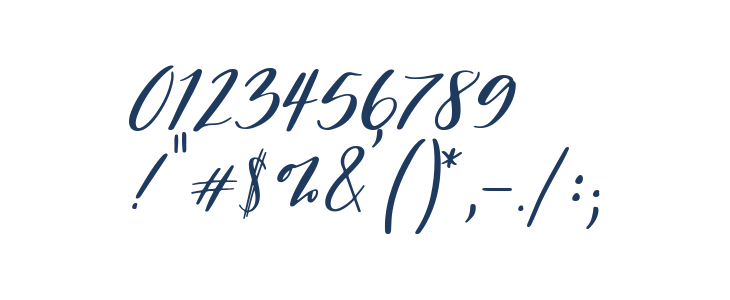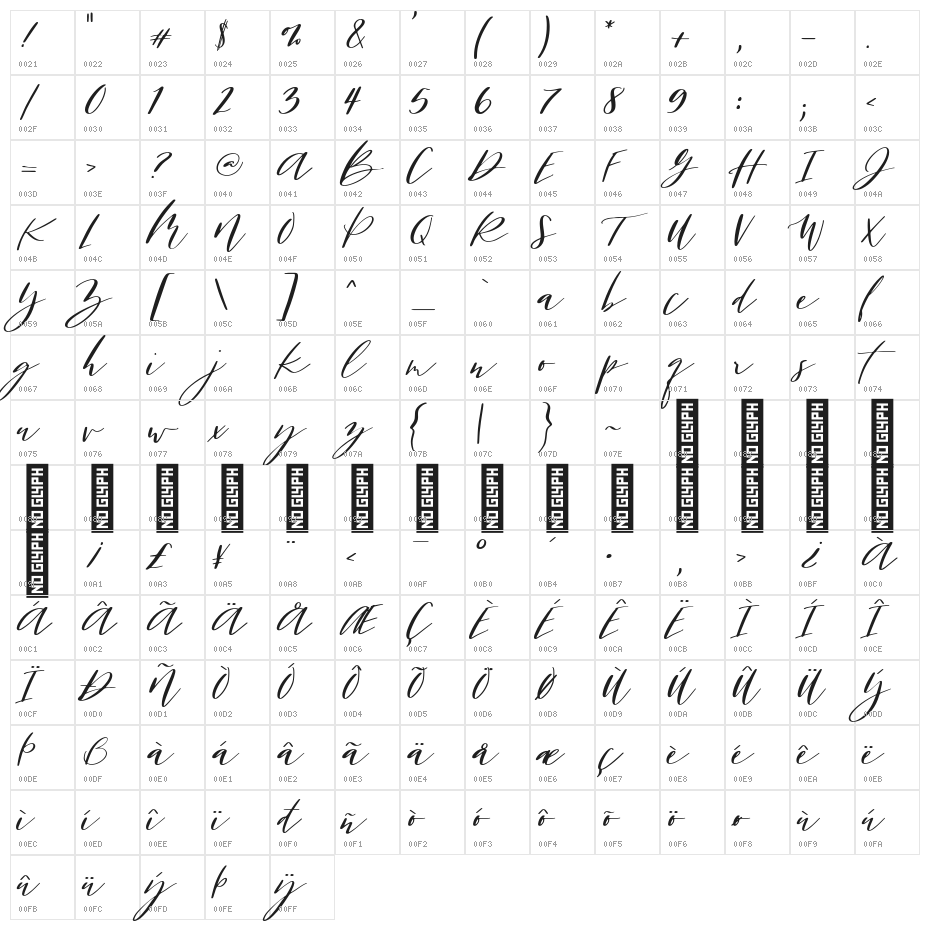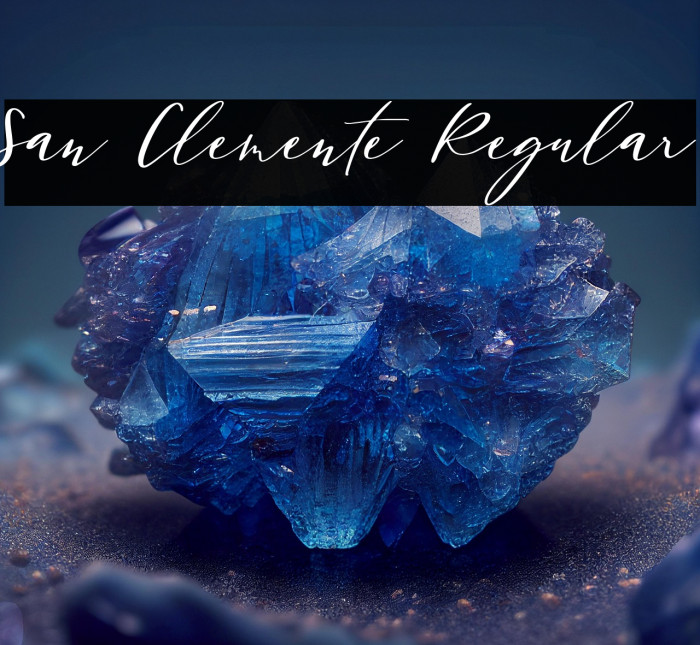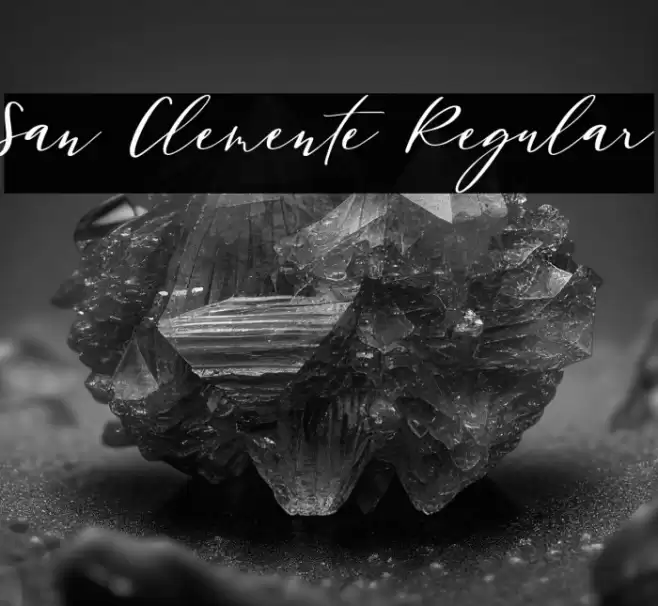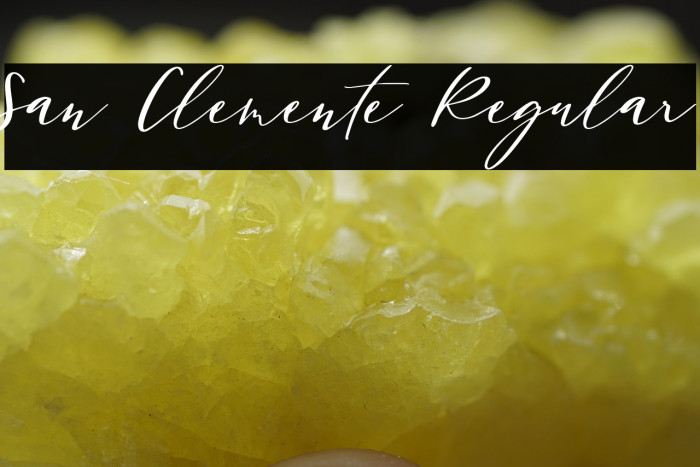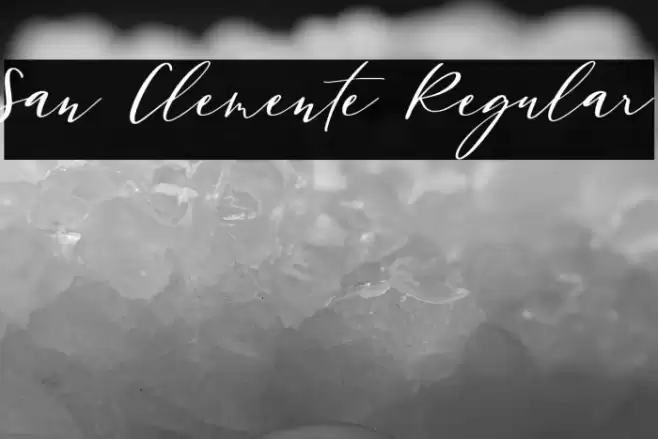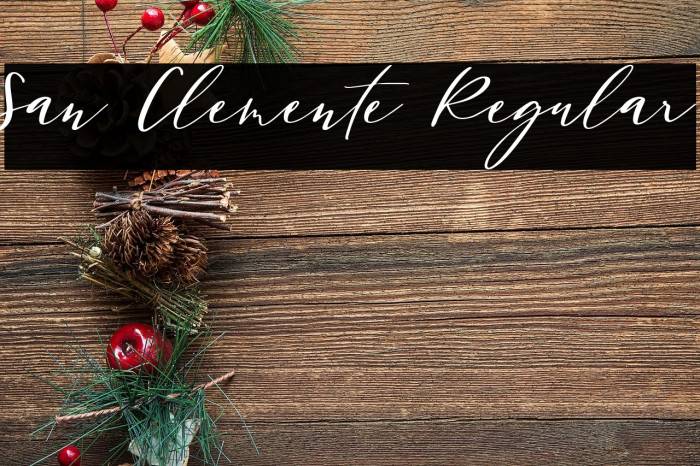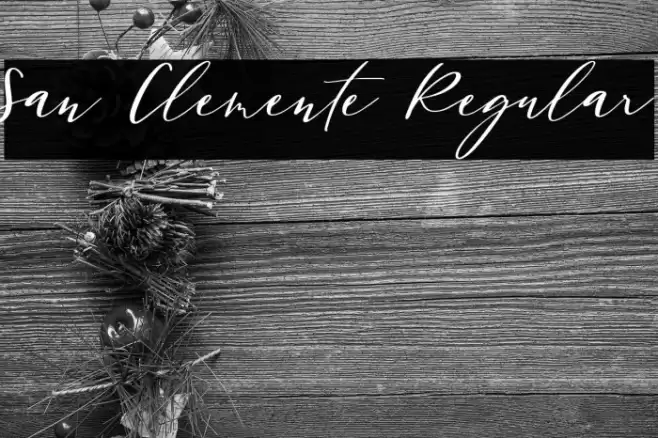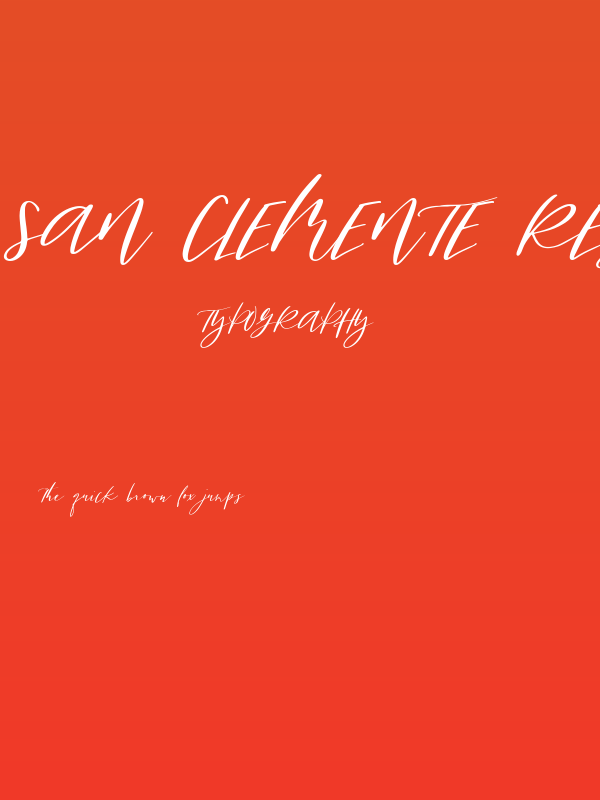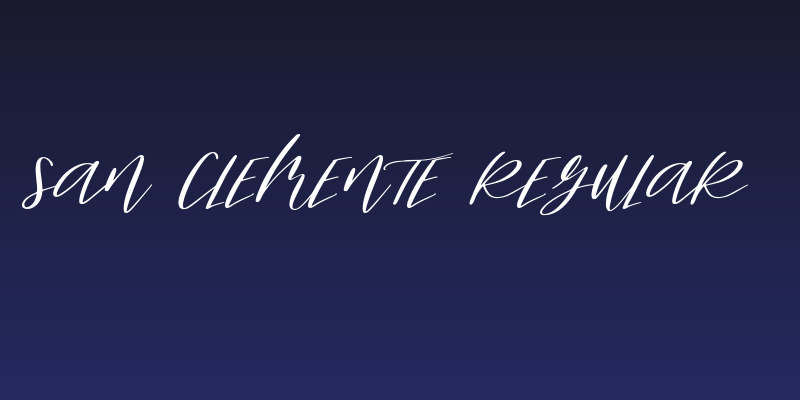
San Clemente Regular Font
San Clemente Regular Description
This font features a lively and dynamic script style, characterized by its fluid and flowing letterforms. The strokes are smooth and connected, giving it an elegant and sophisticated appearance. The uppercase letters are bold and expressive, while the lowercase letters maintain a consistent rhythm and grace. Numbers and special characters are crafted with the same attention to detail, ensuring a cohesive look across all text. The overall design exudes a sense of movement and energy, making it ideal for projects that require a personal and artistic touch.
| Proposed Projects | Ideal for wedding invitations, greeting cards, branding, and artistic projects that require a personal touch. |